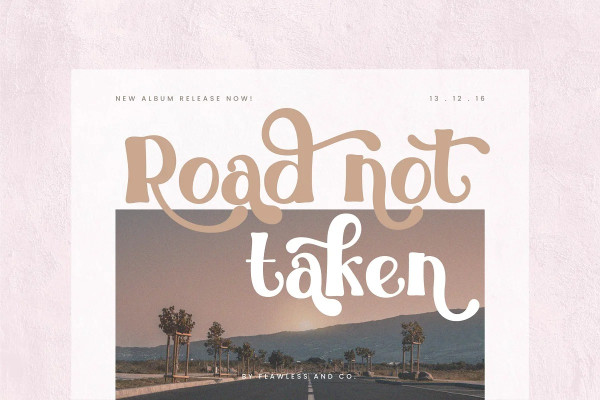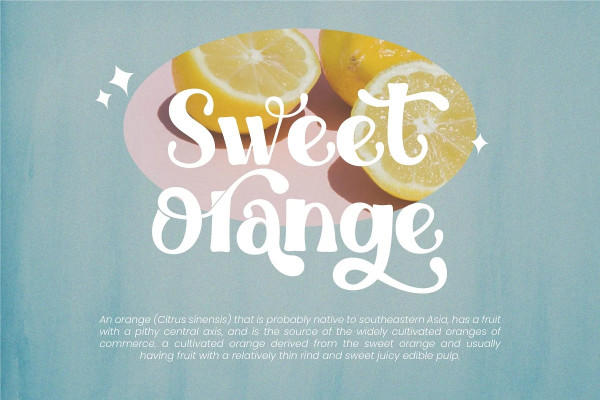
Adelaide Font
Adelaide Font – Sweet Retro Font, Serif Font, This font is perfect for stickers, retro projects, craft projects, shirts, svg designs, procreate designs, branding, blogs, logos, invitations and more!